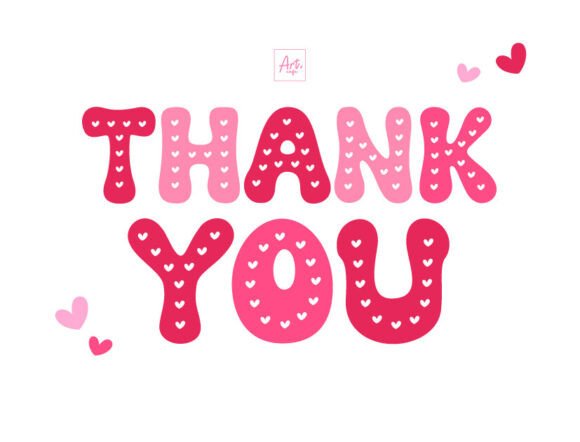
Retro Valentine Font
Introducing Retro Valentine, an artistic font infused with vintage flair. With its bold stature, this font announces itself with confidence, making it an eye-catching choice for striking headlines and posters. Retro Valentine’s standout feature is its playful design detail: heart dots line each letter, adding a charming twist. This makes it a perfect choice for projects centered around Valentine’s Day celebrations, expressions of love, or childhood themes. Rediscover the warmth of the past and communicate with love with our Retro Valentine font.